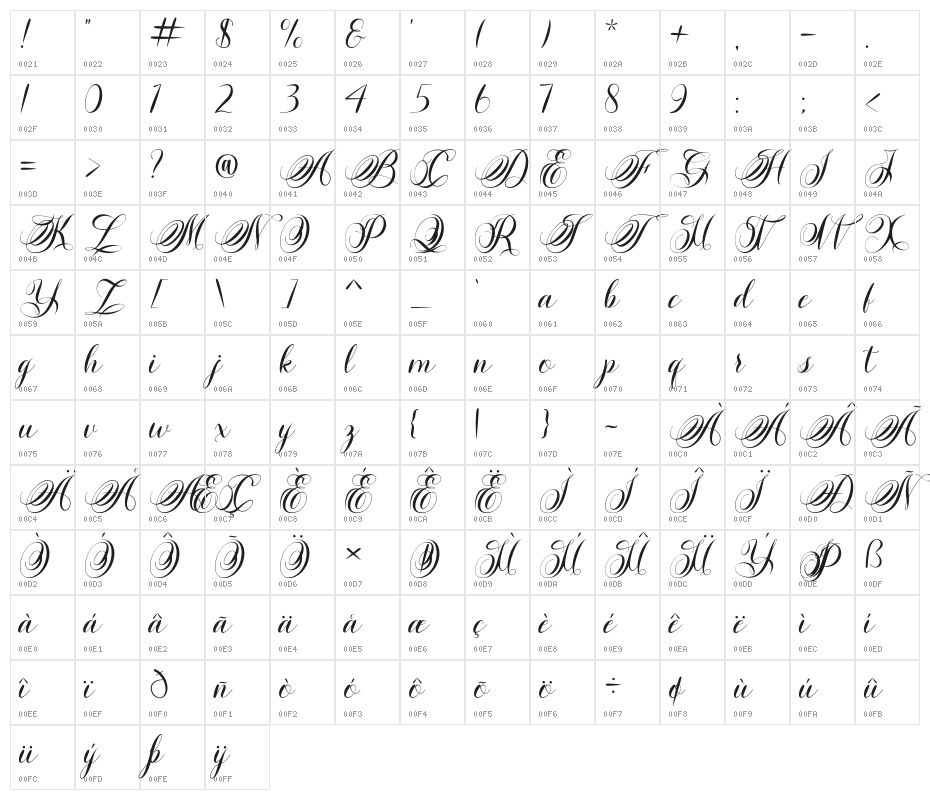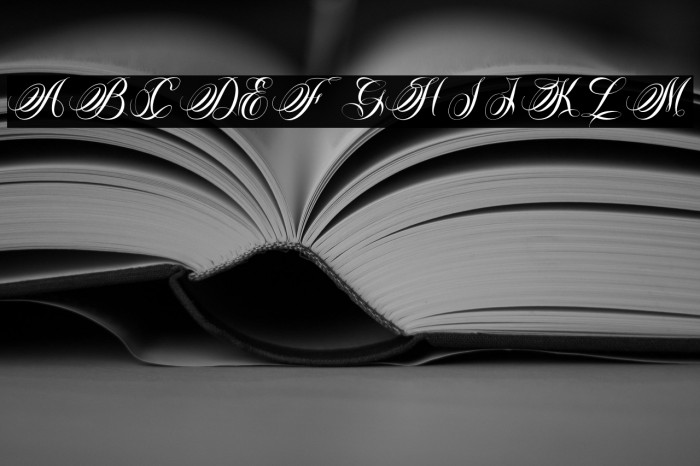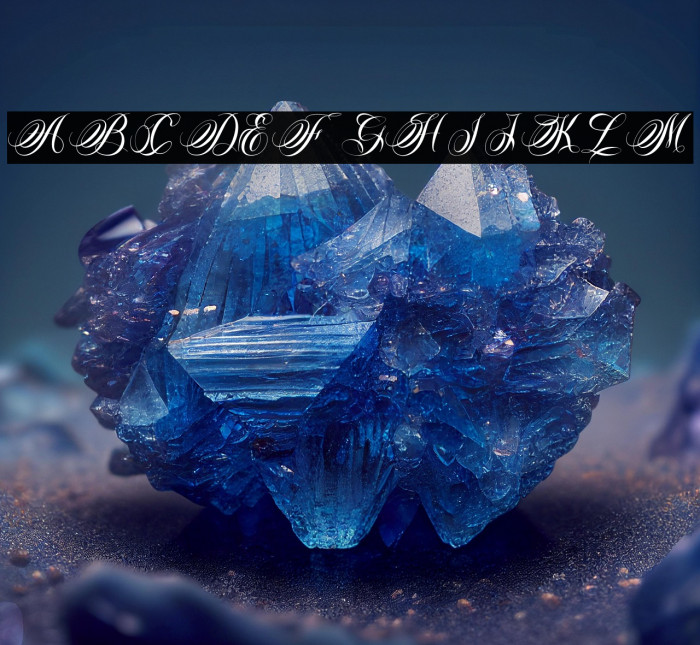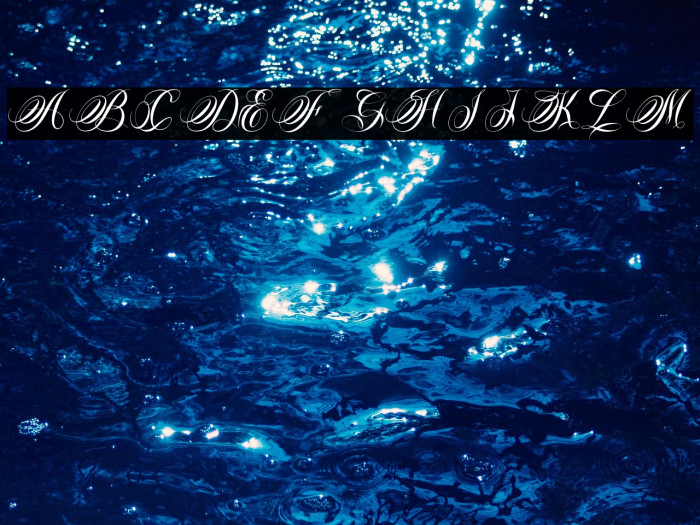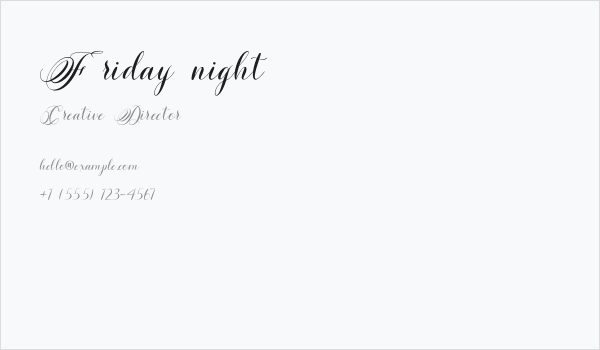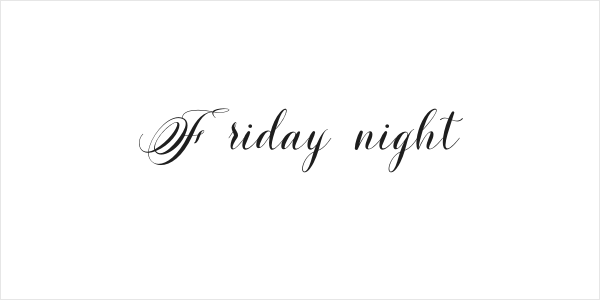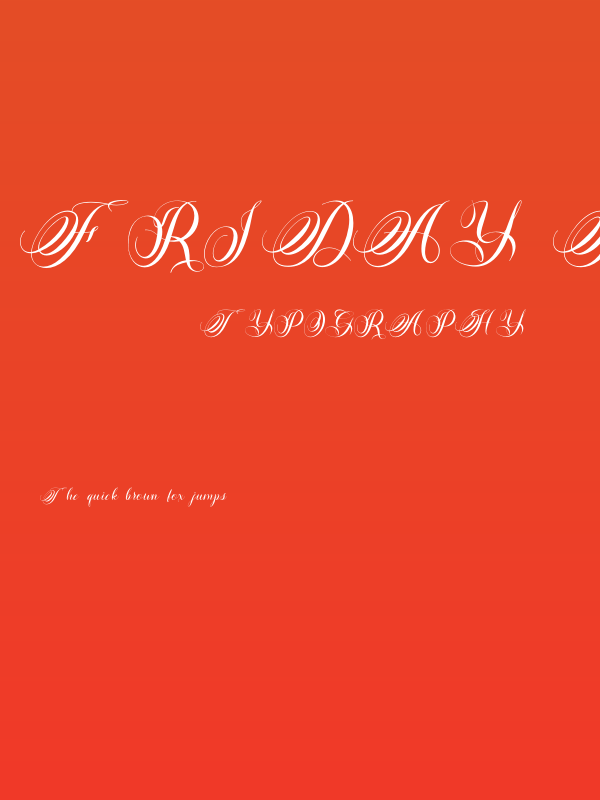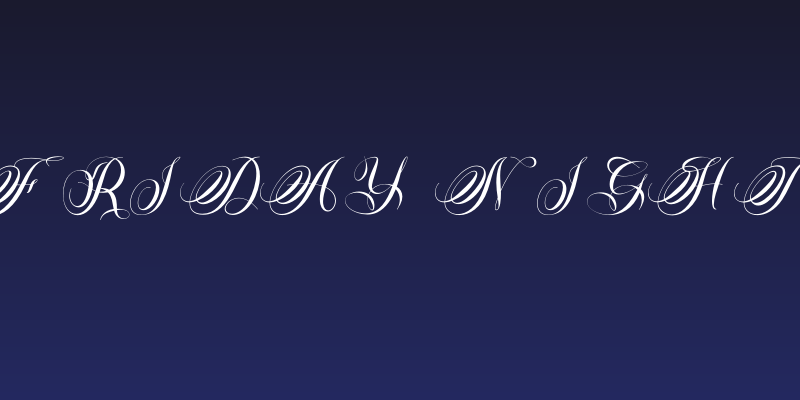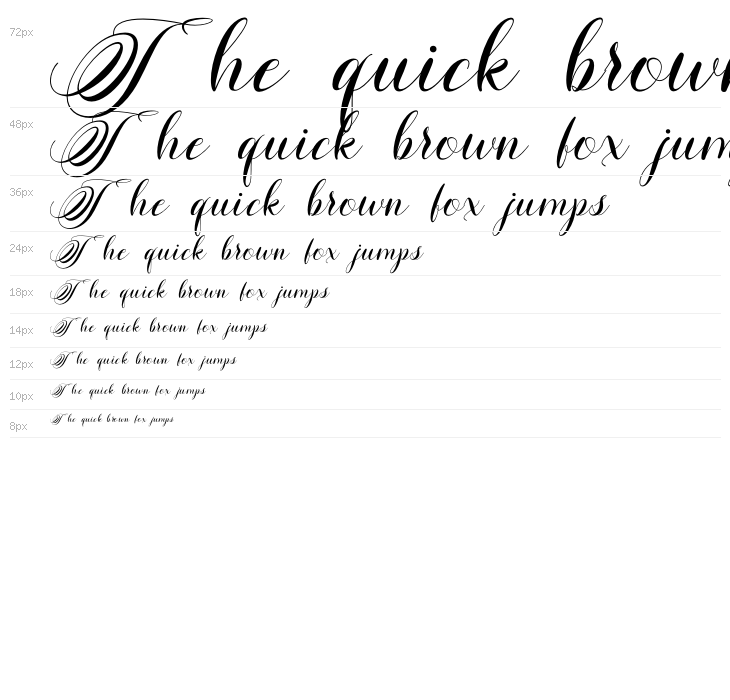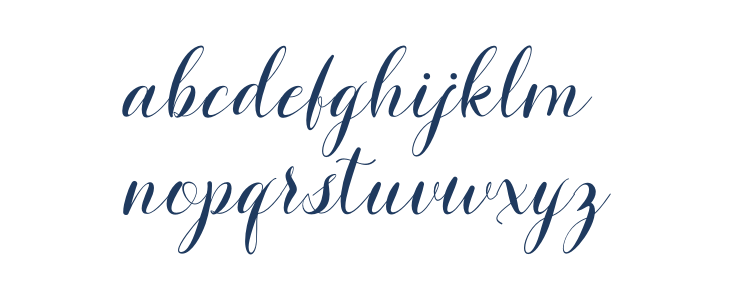
Friday night Font
Friday night Description
This elegant script font features a sophisticated and flowing design, characterized by its intricate swirls and flourishes. The uppercase letters are particularly ornate, with elaborate loops and extensions that give the font a luxurious and decorative appearance. The lowercase letters maintain a graceful continuity, with smooth, connected strokes that enhance readability while preserving the font's artistic flair. The numerals are stylishly crafted, matching the overall aesthetic with their curvaceous forms. Special characters are equally decorative, adding a touch of elegance to punctuation and symbols. This font exudes a sense of refinement and is perfect for projects that require a touch of class and sophistication.